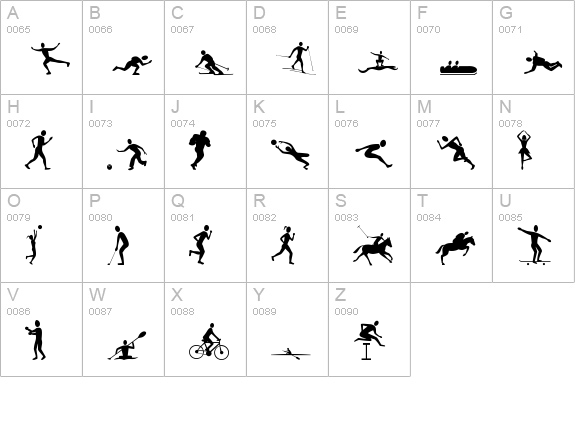
Athletes Font Details
Athletes font is a dynamic and energetic typeface designed specifically for sports-related projects. With its bold and athletic appearance, Athletes font exudes strength and power, making it the perfect choice for posters, banners, and branding materials targeting a sports-loving audience. This versatile font features strong, clean lines and sharp edges, capturing the essence of competitiveness and athleticism. What's even better is that Athletes font is available for free download at FontsMarket.com. This means you can easily access and use this impactful font to elevate your sports-themed designs without any cost. Whether you're creating promotional materials for a sports event or designing merchandise for a sports team, Athletes font will help you convey the spirit of athleticism and determination with its bold and impactful style. Download Athletes font today and take your sports designs to the next level!